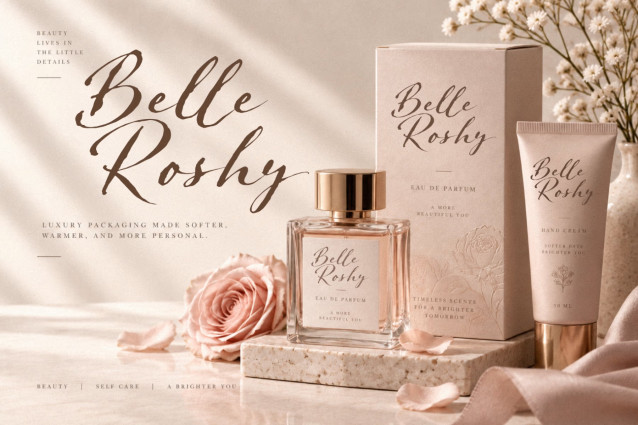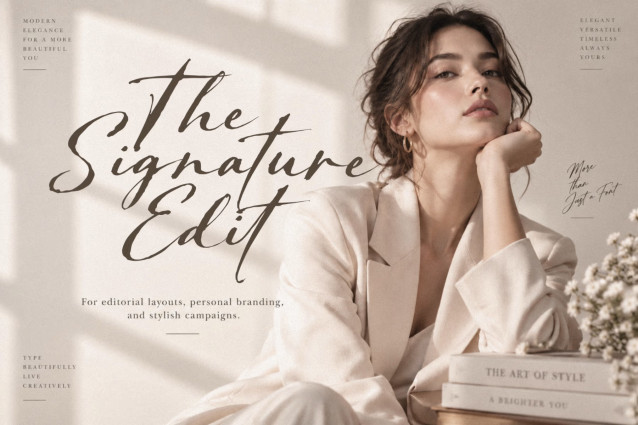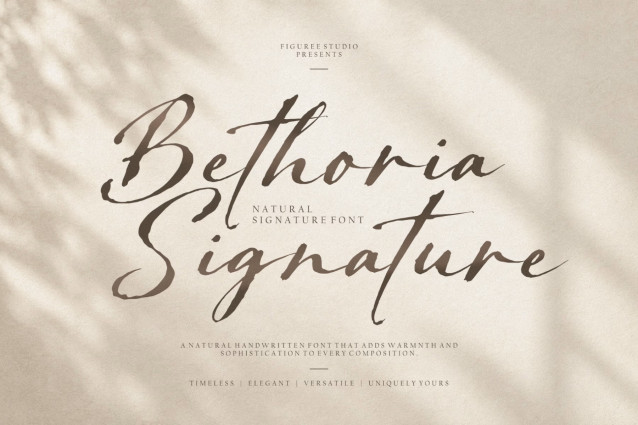
Meet Bethoria Signature, a Natural Handwritten Font created for designers who want typography to feel personal, expressive, and effortlessly refined. Its handwritten character gives words a more human presence, making it a beautiful choice when clean digital typography feels too formal or impersonal for the project.
Bethoria Signature brings a natural signature-inspired personality to creative work without losing the polished appearance needed for professional design. It can help a brand name feel more personal, add warmth to an invitation, give social media graphics a recognizable voice, or become the expressive typographic detail that completes a packaging concept.
Whether you are building a visual identity for a small business, creating artwork for a client, designing memorable stationery, or developing digital content, Bethoria Signature offers a handwritten direction that feels elegant, approachable, and distinctive.